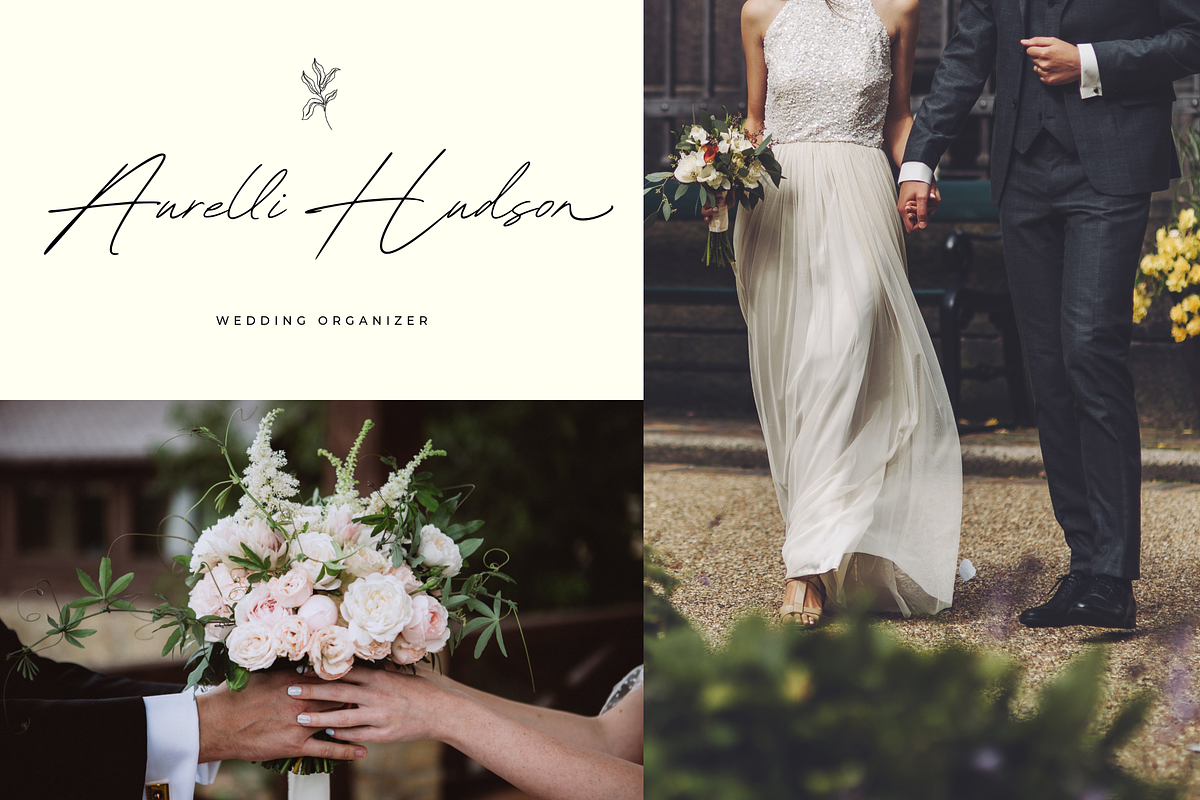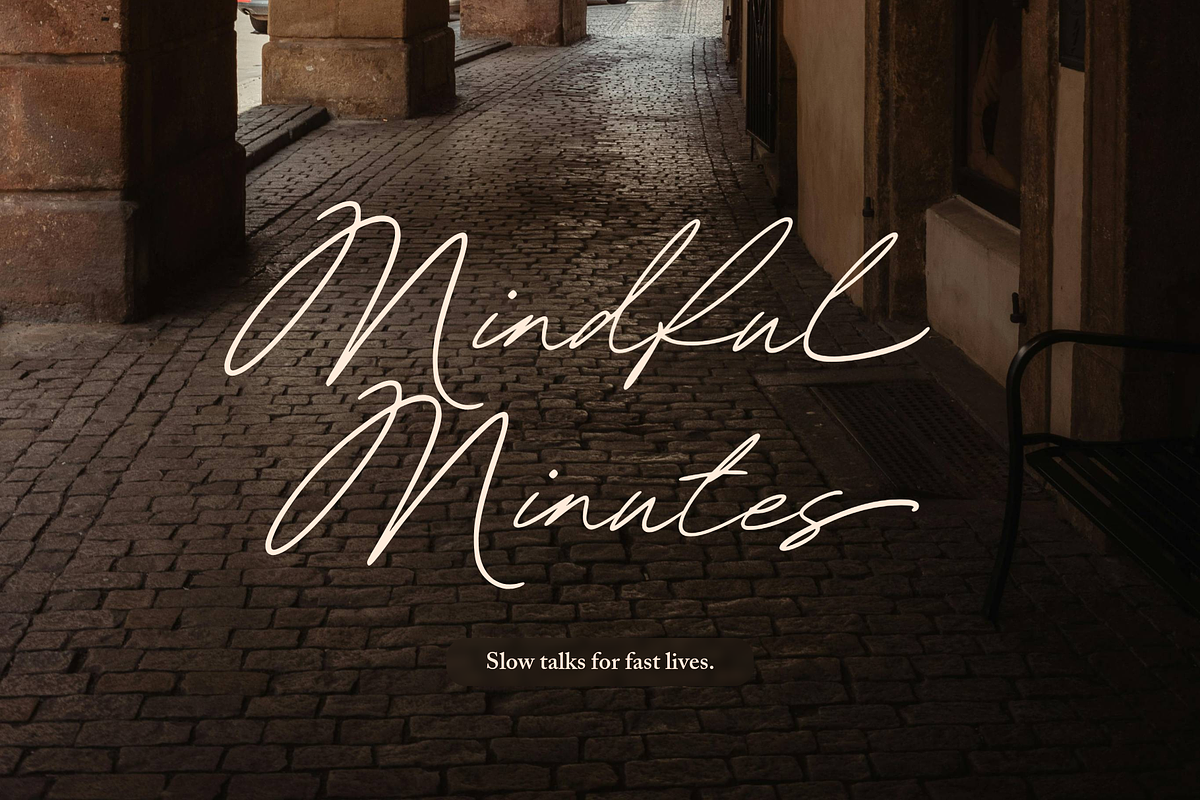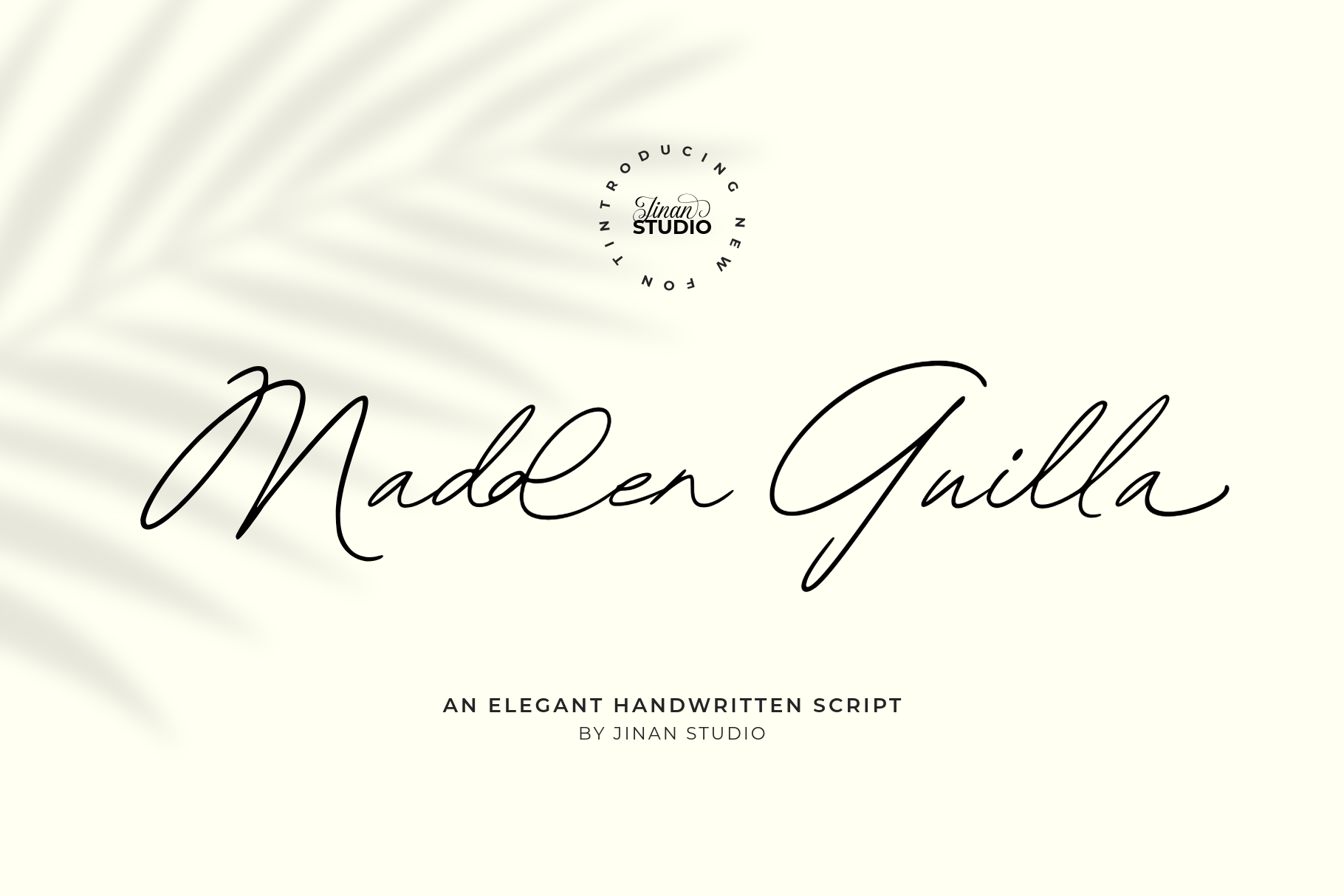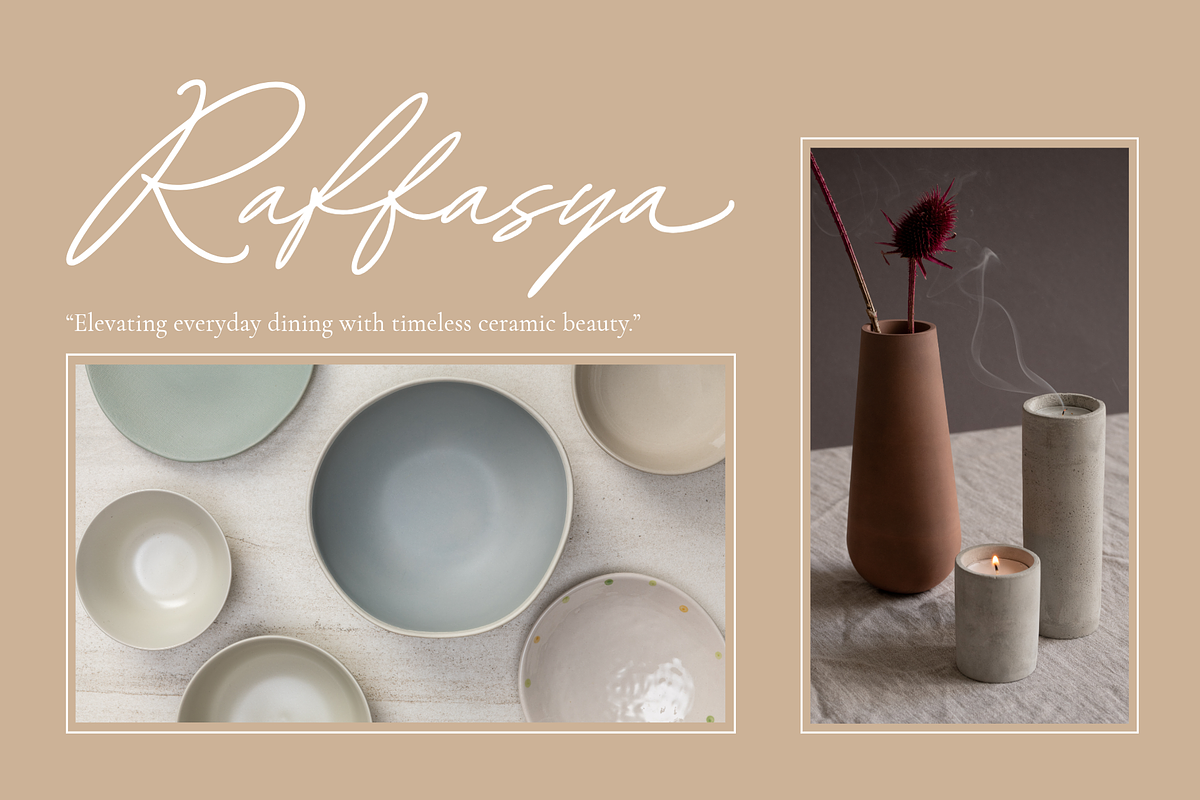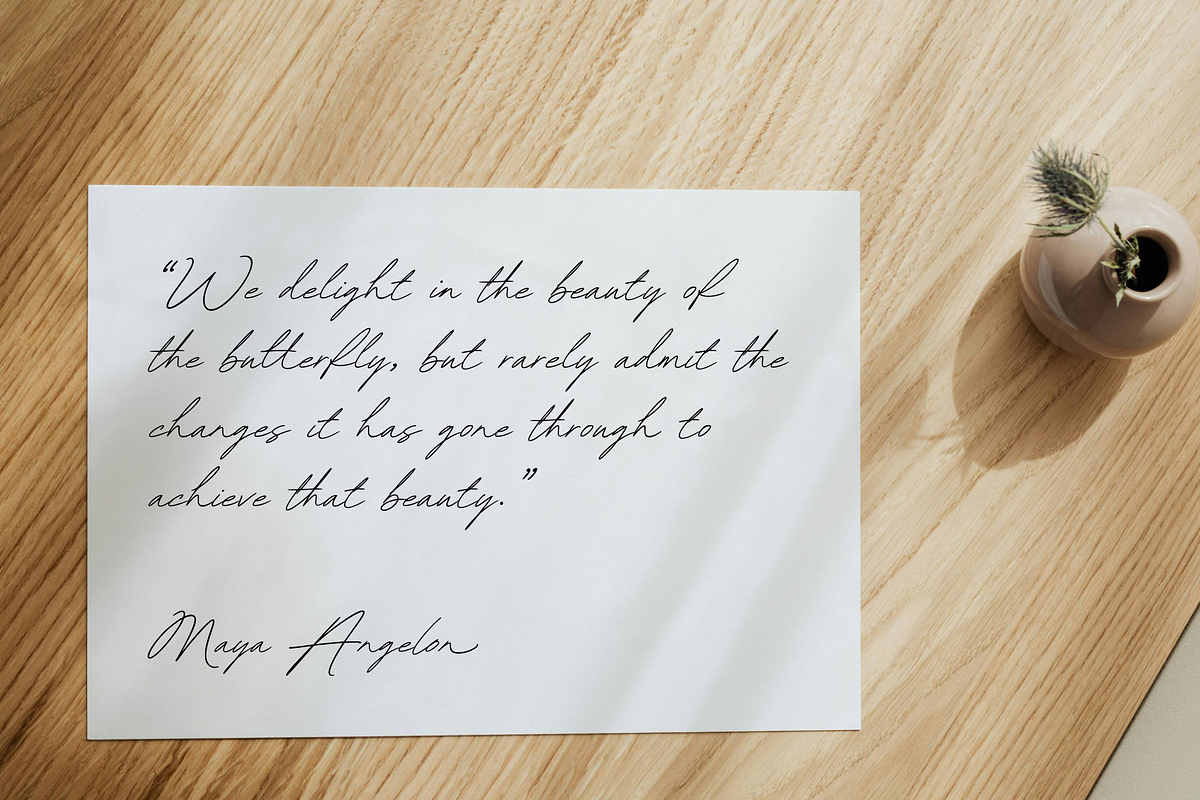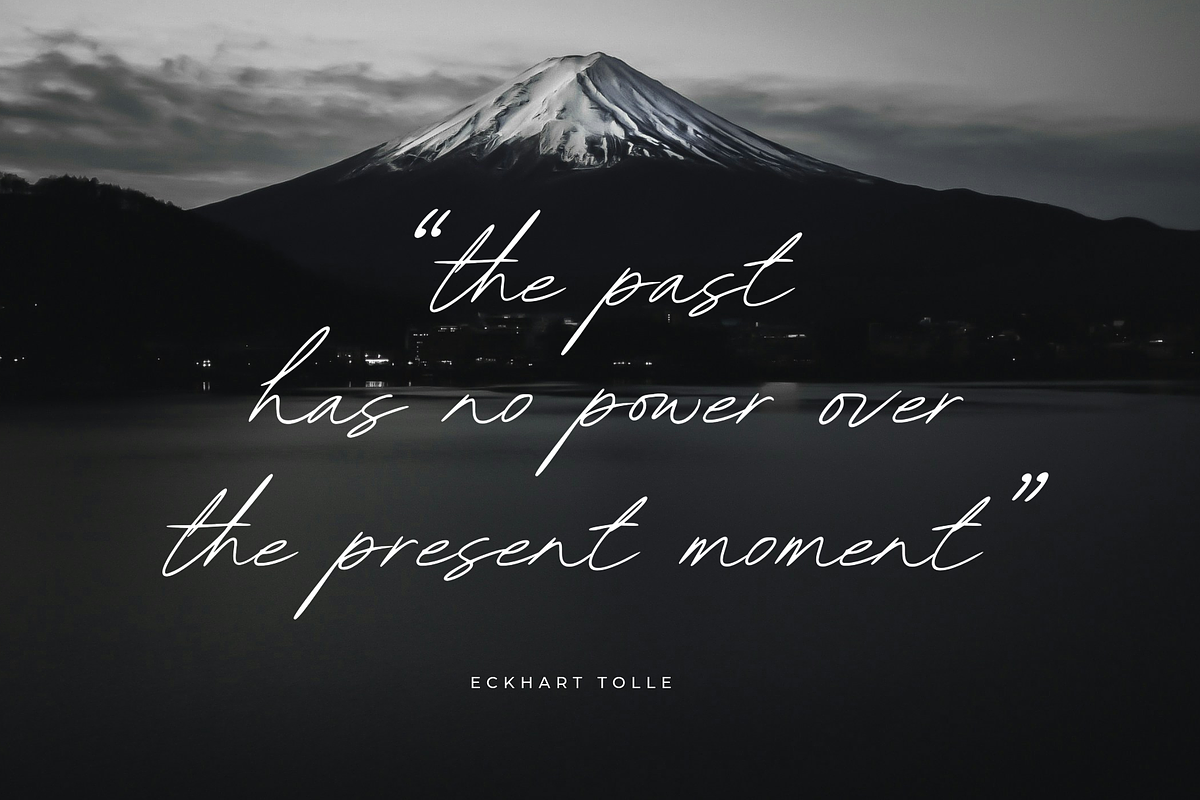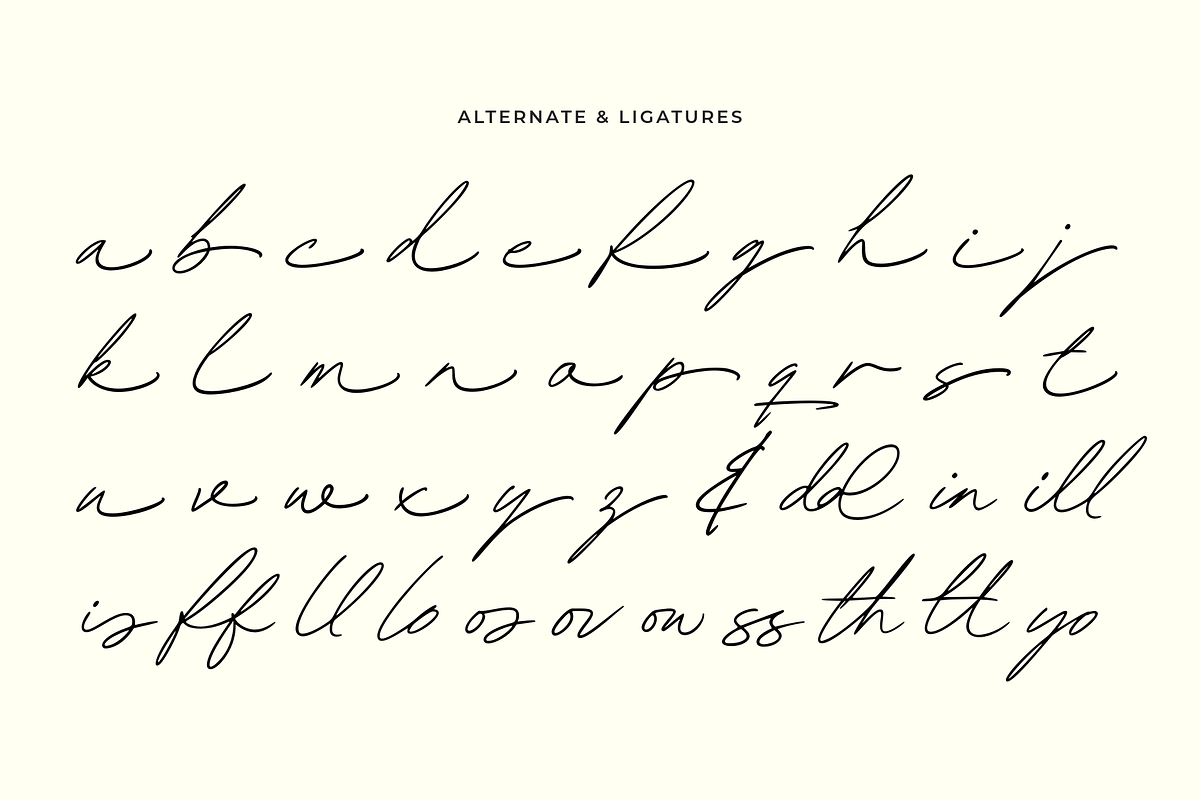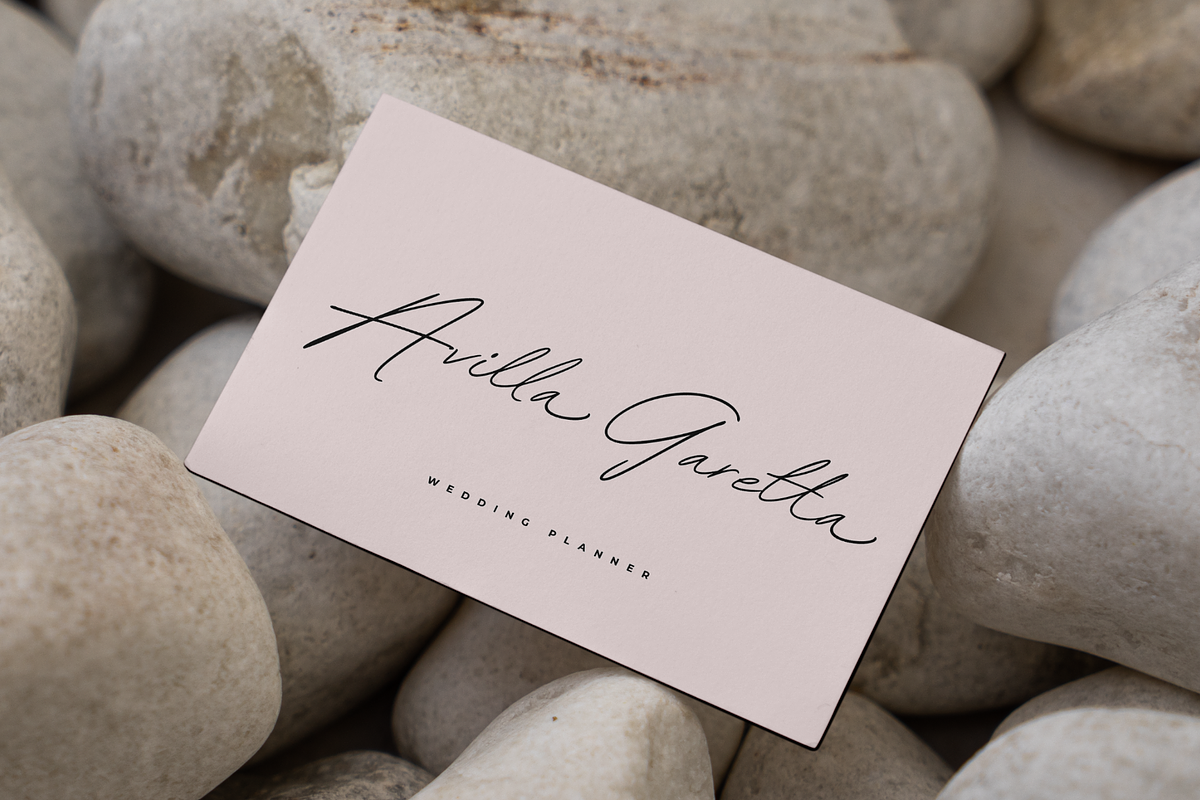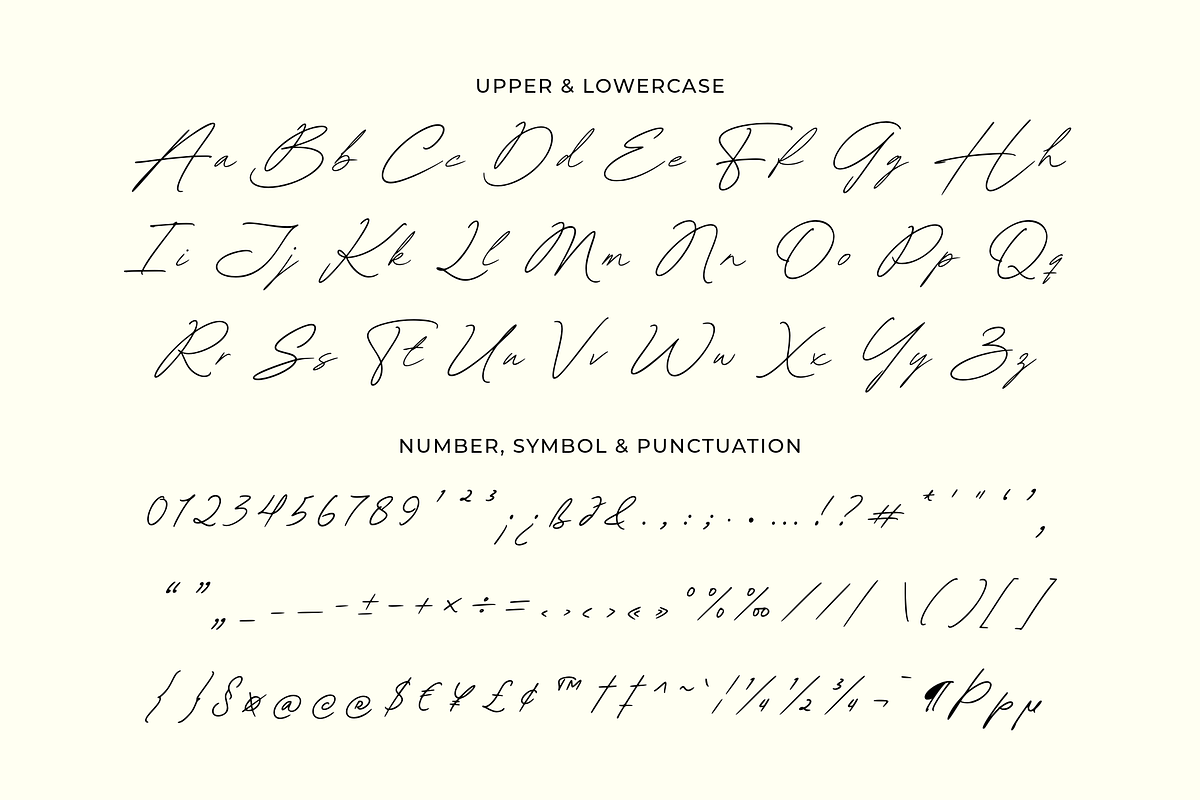
Madden Guilla - An Elegant Font
Madden Guilla is an elegant handwritten script with smooth, natural strokes and a modern signature style. It has a graceful flow that feels classy, soft, and timeless.
Perfect for logos, wedding invitations, branding, social media, packaging, and quotes, this font adds a personal and sophisticated touch to any design.
- A set of uppercase and lowercase glyphs.
- Number, symbol, and punctuation.
- Multilingual Support.